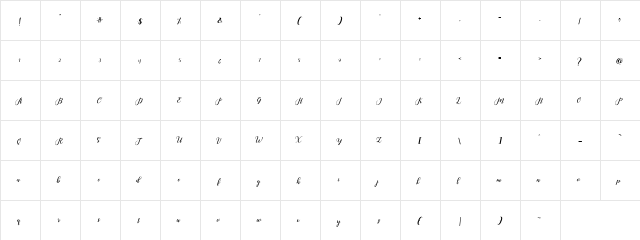
Hello Junita Regular
| Foundry | Wdfont |
| Designer | Captain Jack |
Design Context for Hello Junita Typeface
Hello Junita is a composed and adaptable typeface that performs quietly and consistently across a wide range of design contexts.